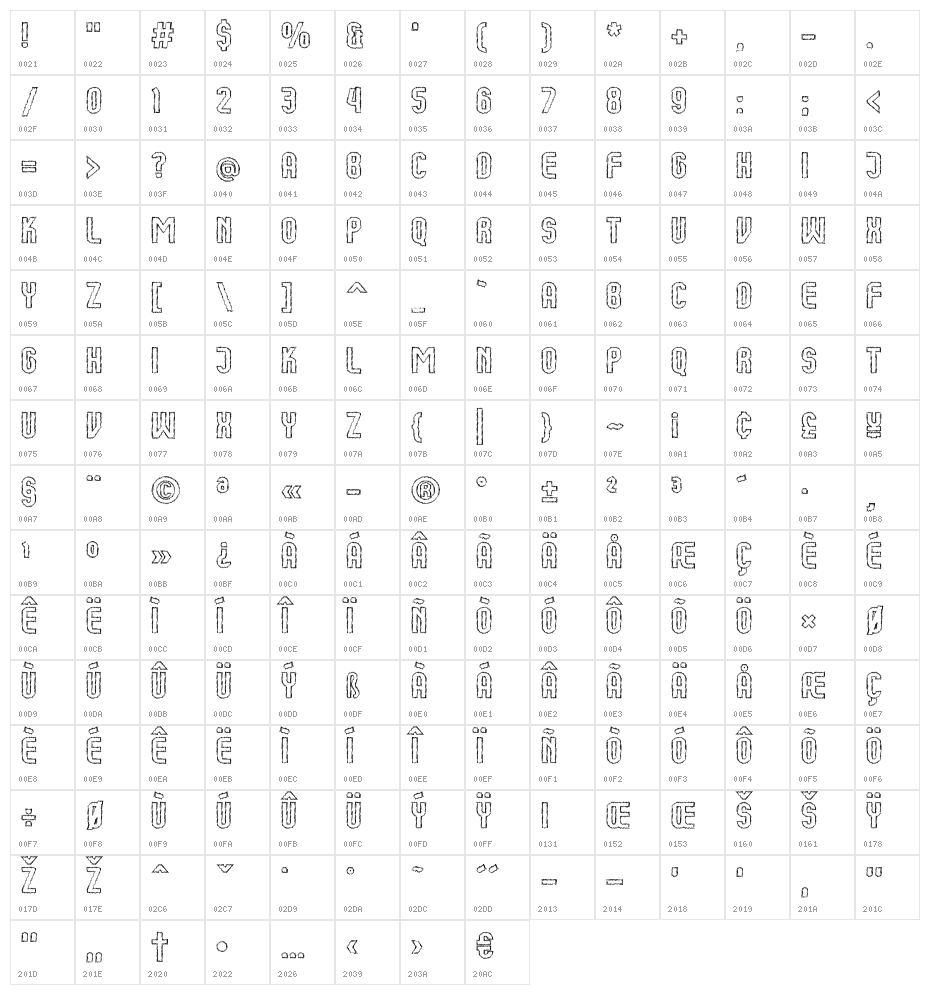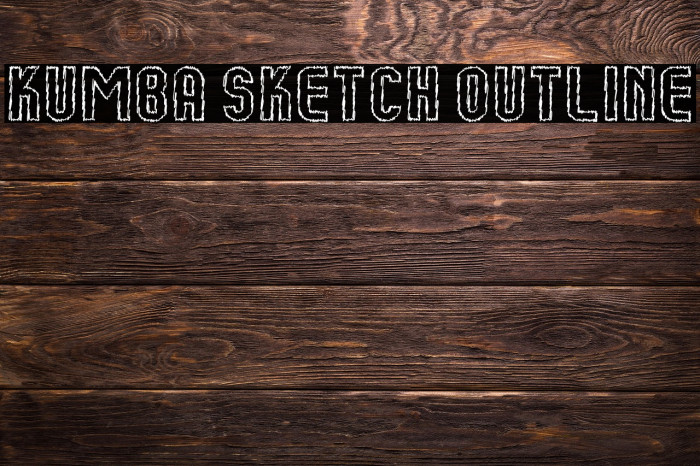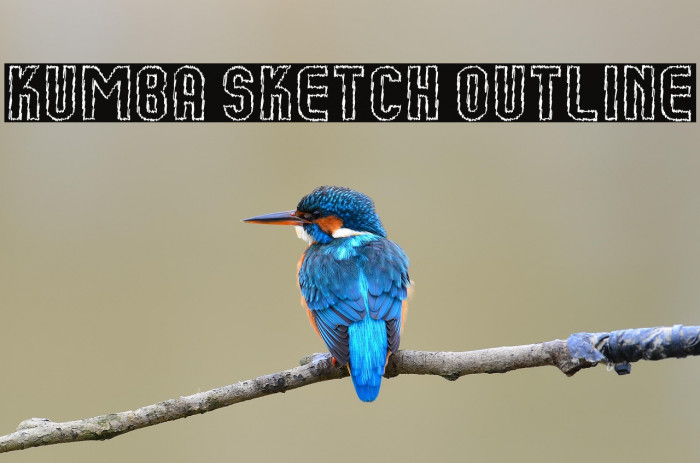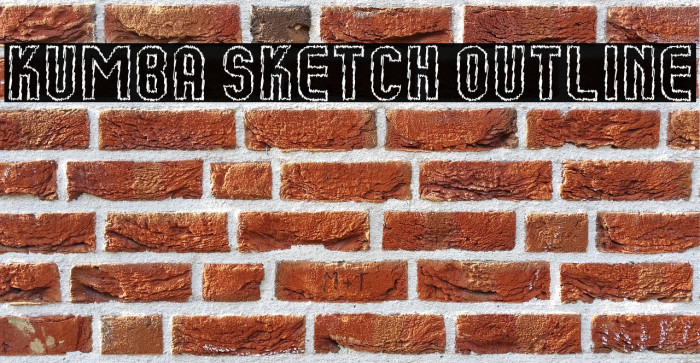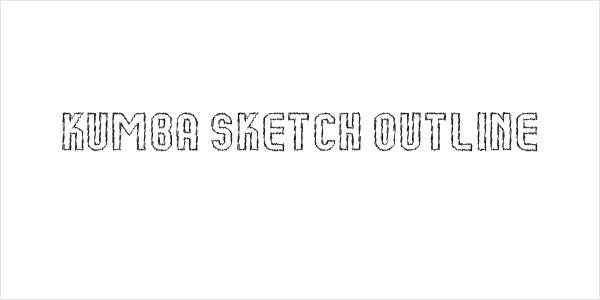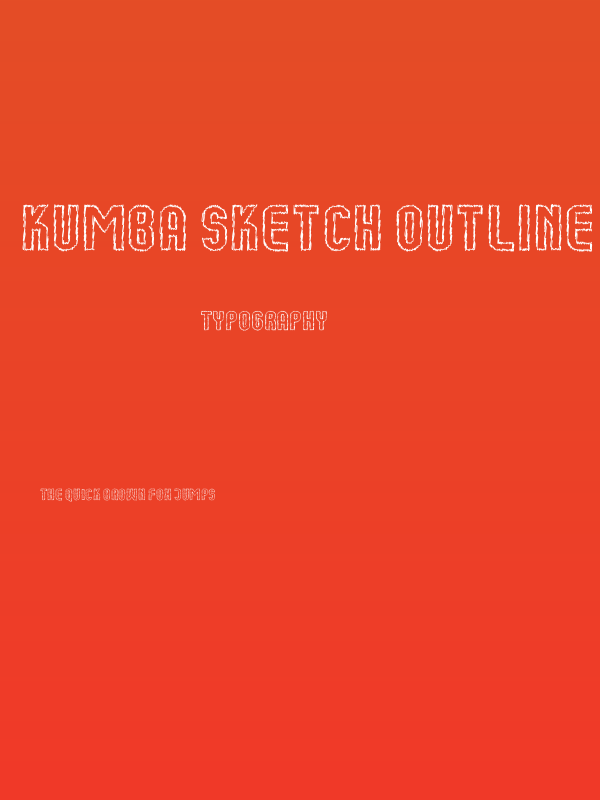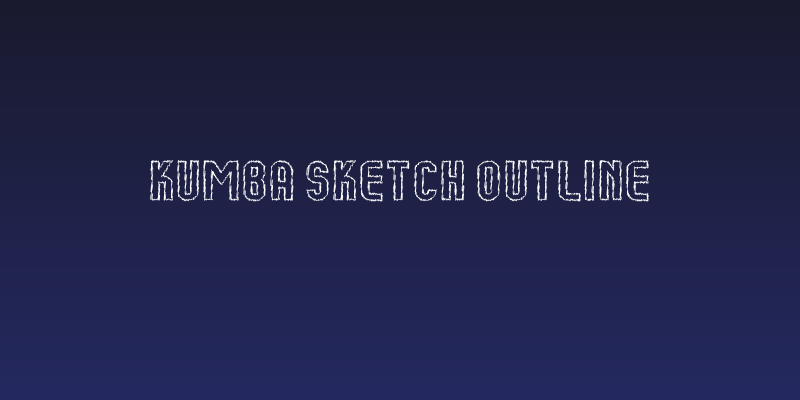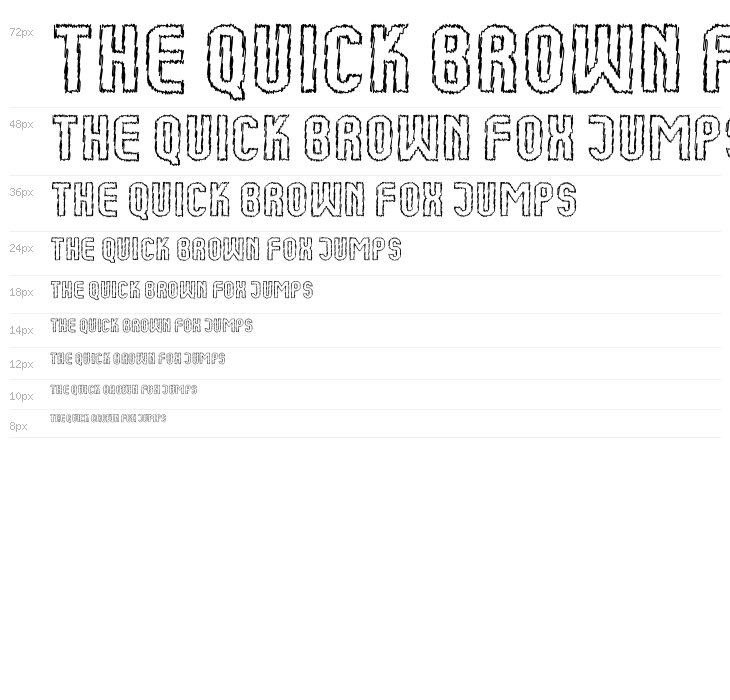
Kumba Sketch Outline Font
Kumba Sketch Outline Description
This font features a unique sketch outline style that gives it a hand-drawn, artistic appearance. The characters are bold and have a playful, informal feel, making them stand out with their rough, textured edges. Each letter and number is distinct, with a consistent outline that suggests a sense of movement and creativity. The font is highly decorative, capturing attention with its unconventional design. It is perfect for projects that require a touch of whimsy and individuality, such as children's books, creative posters, or artistic branding. The font's sketch-like quality adds a layer of depth and interest, making it suitable for designs that aim to be both engaging and visually striking.
| Proposed Projects | Ideal for children's books, creative posters, artistic branding, and whimsical designs. |